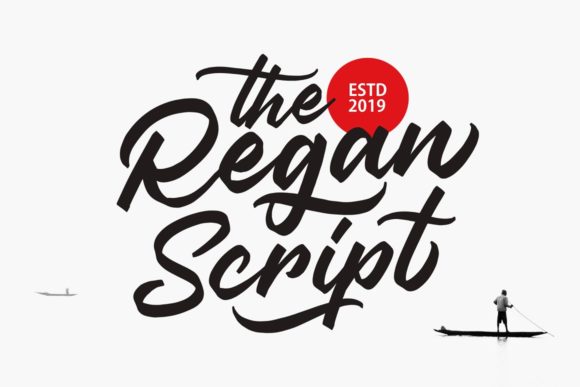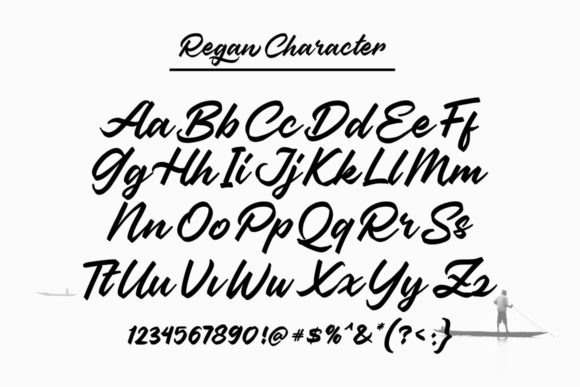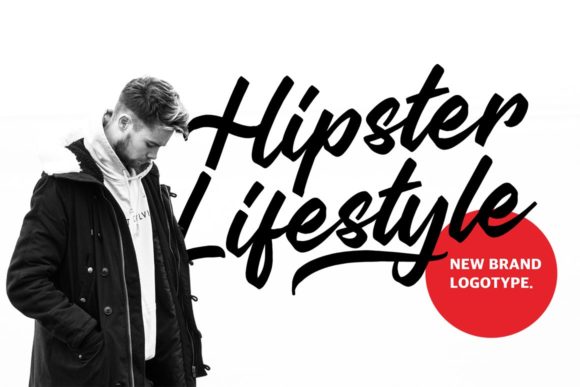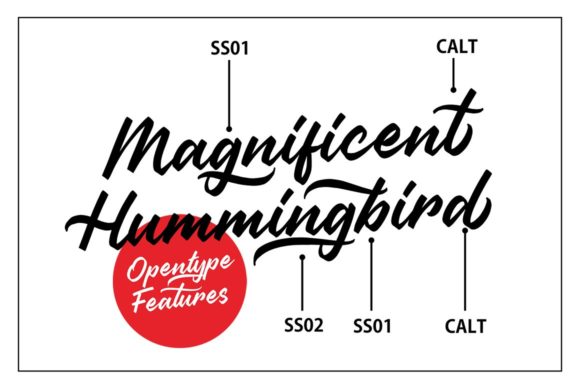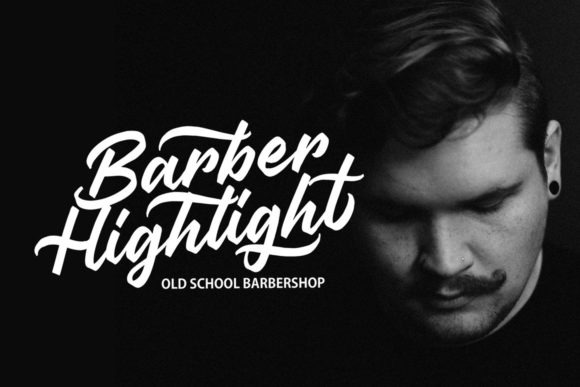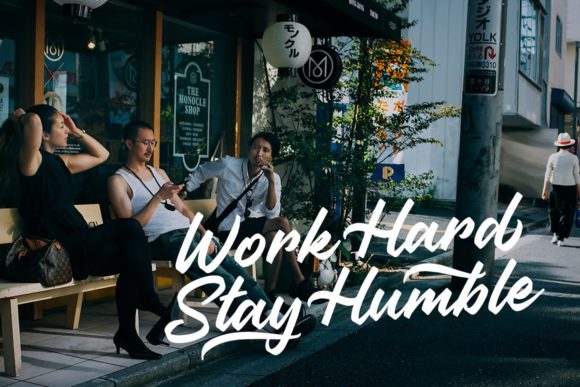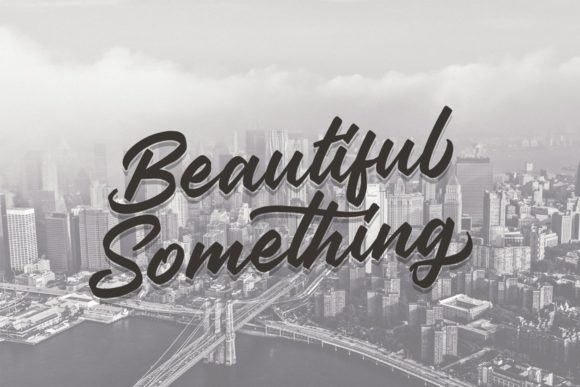
The Regan Script Font
About The Regan Script Font
The Regan Script is an assertive and unique handwritten font, defined by a retro style. Its lovely and original style makes it incredibly fitting to a large pool of designs. The only limit is your imagination!